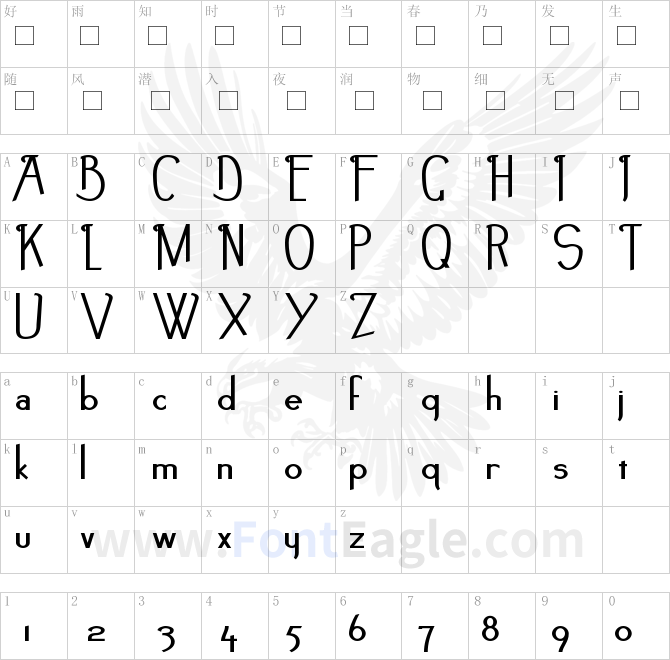
Noir-et-Blanc-Bold is a great font, widely used in graphic design, single-page menu design, poster design and other fields, and is deeply loved by designers.Noir-et-Blanc-Bold download.